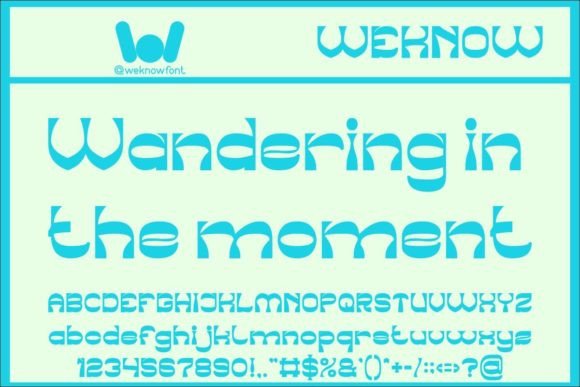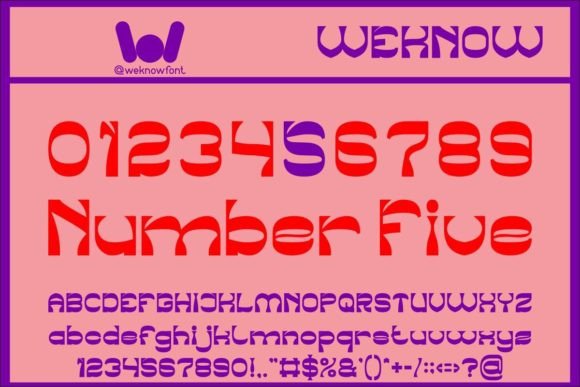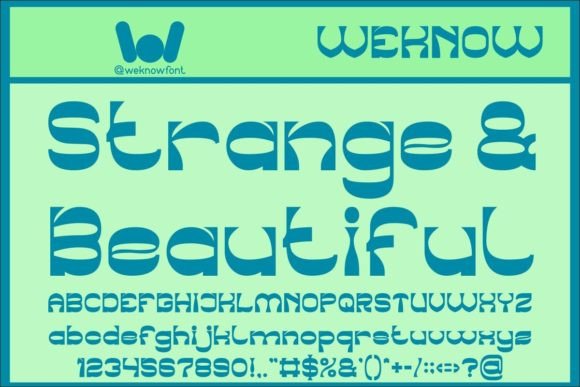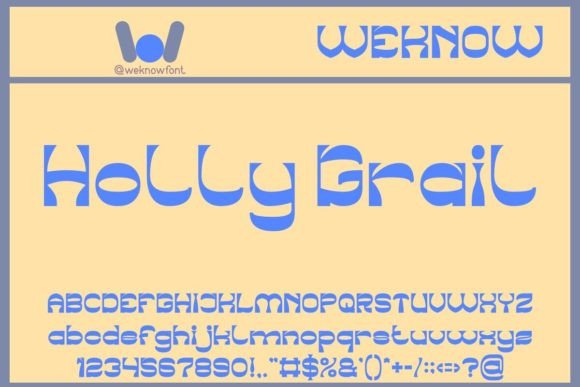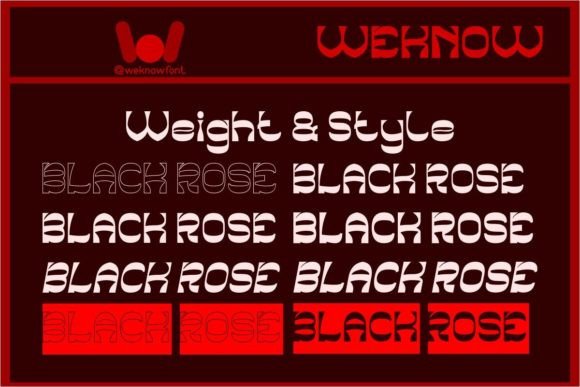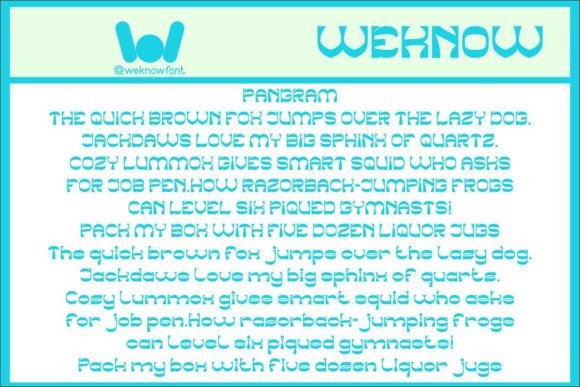
Unveiling the Elegance of Black Rose Font: A Designer’s Dream
In the realm of typography, few fonts manage to capture the essence of elegance and diversity as effectively as the Black Rose font. This exquisitely striking display font is a masterpiece of design, boasting curves and contours that exude finesse and sophistication. Whether you’re a seasoned designer or a crafty enthusiast, Black Rose is an exceptional choice for elevating your creative projects to new heights.
The Epitome of Versatility
One of the standout features of Black Rose is its incredible versatility. This font is not confined to a single application or industry; rather, it can be seamlessly integrated into a wide range of design projects. For businesses looking to establish a strong brand identity, Black Rose can be used to craft polished logos, captivating headlines, and cohesive corporate identities that command attention and inspire trust.
Elevating the Apparel Industry
In the apparel industry, fashion and style are paramount. Black Rose font can amplify the style quotient of your designs, adding a touch of luxury and sophistication to clothing, accessories, and branding materials. Whether you’re designing for a high-end fashion label or a casual streetwear brand, Black Rose can help you create visually stunning and memorable designs.
Creative Applications Across Industries
The applications of Black Rose extend far beyond the world of fashion and branding. This font can also be used to create captivating musical compositions, movie titles, game graphics, and editorial ventures such as magazines and books. The rhythmic flow of Black Rose makes it an excellent choice for:
- Musical compositions: Add a touch of elegance to your album covers, song titles, and music scores.
- Movie titles: Create captivating and memorable title sequences that set the tone for your film.
- Game graphics: Elevate your game design with stylish and eye-catching fonts that engage players.
- Editorial ventures: Add a touch of sophistication to your magazine and book designs, making them stand out on crowded newsstands.
Adding Humor and Engagement
Black Rose is not just limited to serious and elegant designs; it can also be used to add a touch of humor and playfulness to your projects. The font’s unique character makes it an excellent choice for:
- Comics and cartoons: Add a dash of humor and whimsy to your comic strips and cartoon designs.
- Social media platforms: Create eye-catching and engaging content for YouTube, Instagram, and other social media platforms.
Web Design and Beyond
In the digital realm, Black Rose can be used to breathe life into any creative design project. Whether you’re designing a website, creating a mobile app, or crafting a digital advertisement, this font can help you create a lasting impression on your audience. Its unique character and versatility make it an excellent choice for:
- Websites: Add a touch of elegance and sophistication to your website design.
- Digital advertisements: Create eye-catching and memorable ads that capture the attention of your target audience.
Unlocking Your Creativity
Black Rose font is more than just a typography; it’s a design statement that can elevate your creative projects to new heights. With its elegance, versatility, and unique character, this font can help you:
- Express your creativity: Bring your ideas to life with a font that is both stylish and memorable.
- Establish your brand identity: Create a lasting impression on your audience with a font that exudes sophistication and elegance.
- Stand out from the crowd: Differentiate your designs from the competition with a font that is both unique and captivating.
In conclusion, Black Rose font is a designer’s dream come true. Its elegance, versatility, and unique character make it an exceptional choice for a wide range of creative projects. Whether you’re a seasoned designer or a crafty enthusiast, Black Rose is sure to inspire your creativity and help you create stunning designs that leave a lasting impression.